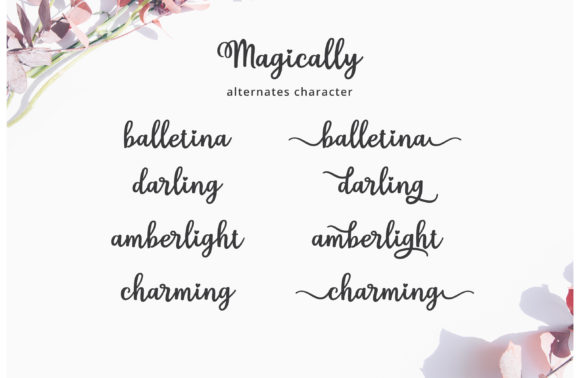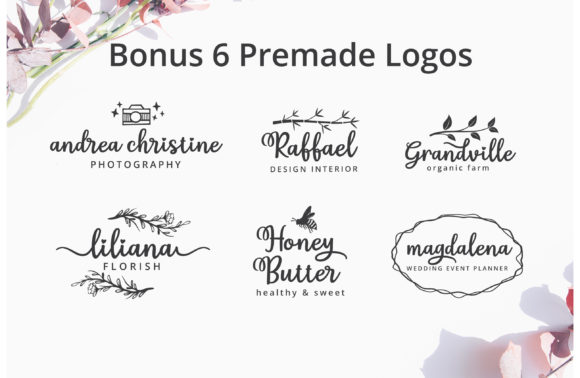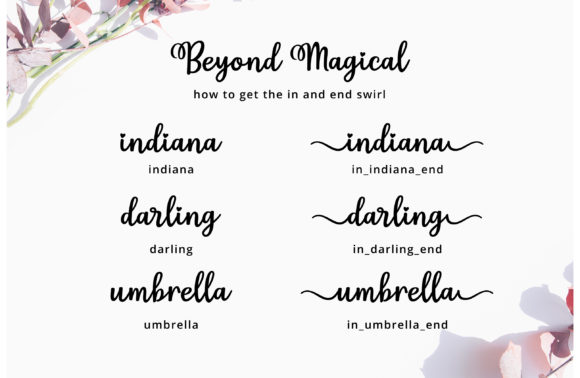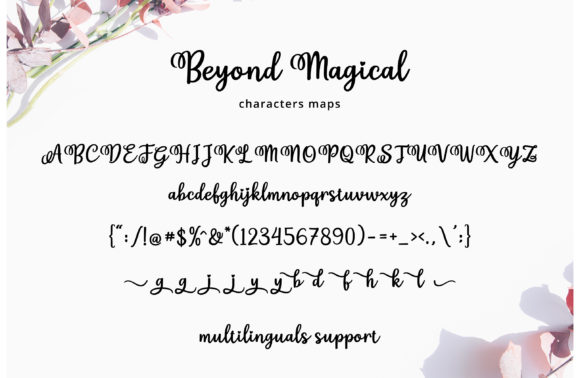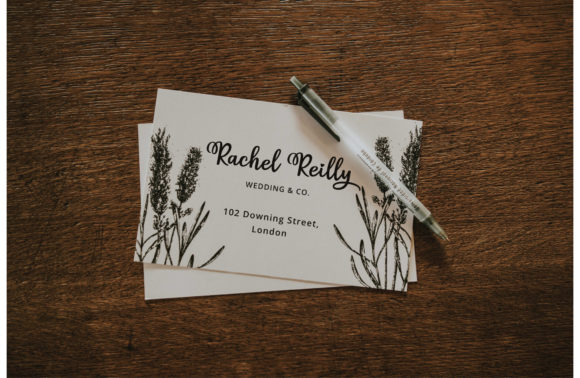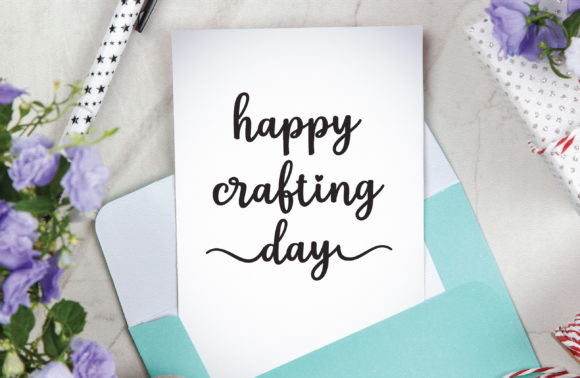
Beyond Magical Font: Elevate Your Design Projects with a Touch of Whimsy
Are you tired of using the same old fonts in your design projects? Look no further than Beyond Magical, a sweet and cool handwritten font that’s sure to add a unique touch to your creations. With its distinctive feel and artistic flair, Beyond Magical is the perfect choice for designers and crafters looking to take their work to the next level.
The Magic of Beyond Magical
Beyond Magical is a one-of-a-kind font that’s been carefully crafted to bring a sense of wonder and enchantment to your designs. Its handwritten style is both elegant and playful, making it perfect for a wide range of projects, from wedding invitations and greeting cards to branding and advertising materials.
One of the things that sets Beyond Magical apart from other fonts is its unique feel. The letters are carefully shaped and spaced to create a sense of movement and flow, giving your designs a dynamic and energetic feel. Whether you’re looking to create a bold statement or a subtle impression, Beyond Magical is the perfect choice.
Transform Your Design Projects into Works of Art
With Beyond Magical, you can turn even the most mundane design project into a piece of art. Imagine being able to add a touch of magic to your branding materials, or creating wedding invitations that are truly unforgettable. This font is designed to inspire your creativity and help you bring your vision to life.
Whether you’re a professional designer or a crafter looking to add a personal touch to your projects, Beyond Magical is the perfect choice. Its versatility and charm make it suitable for a wide range of applications, from digital designs to print materials.
What Makes Beyond Magical So Special?
So what makes Beyond Magical so special? Here are just a few reasons why this font stands out from the crowd:
- Unique feel: Beyond Magical has a distinctive handwritten style that’s both elegant and playful.
- Versatility: This font is suitable for a wide range of projects, from digital designs to print materials.
- High-quality: This font is carefully crafted to ensure that it looks great in any design.
How to Use Beyond Magical in Your Design Projects
Using Beyond Magical in your design projects is easy. Here are a few tips to get you started:
- Choose the right size: Experiment with different font sizes to find the one that works best for your project.
- Pair it with other fonts: Beyond Magical looks great when paired with other fonts. Try experimenting with different combinations to find the one that works best for you.
- Experiment with colors: This font looks great in a wide range of colors. Try experimenting with different hues and shades to find the one that works best for your project.
Beyond Magical is a sweet and cool handwritten font that’s sure to add a touch of magic to your design projects. With its unique feel and artistic flair, this font is perfect for designers and crafters looking to take their work to the next level. Whether you’re looking to create a bold statement or a subtle impression, Beyond Magical is the perfect choice. So why wait? Download Beyond Magical today and start transforming your design projects into works of art!